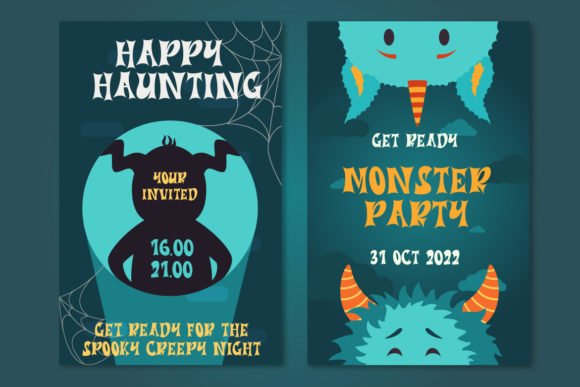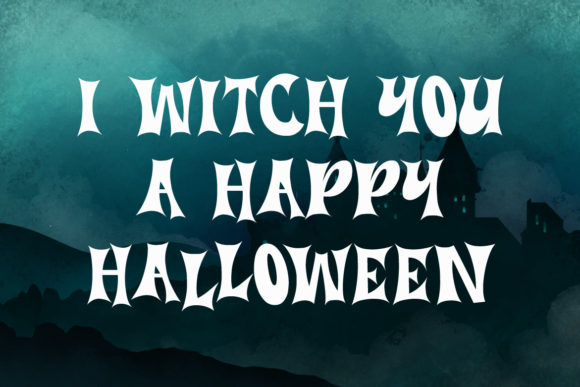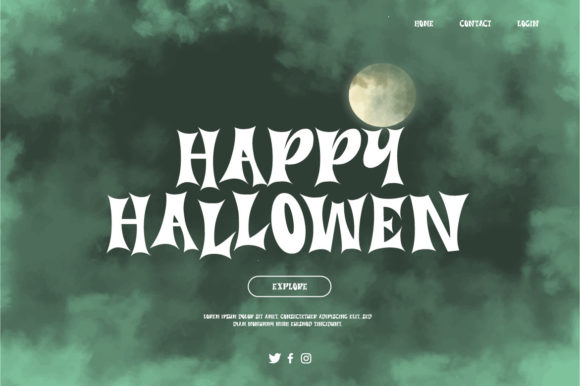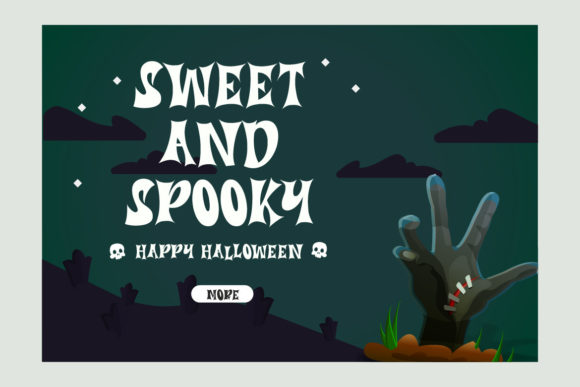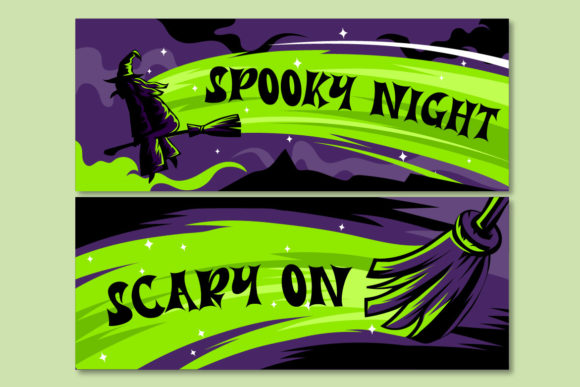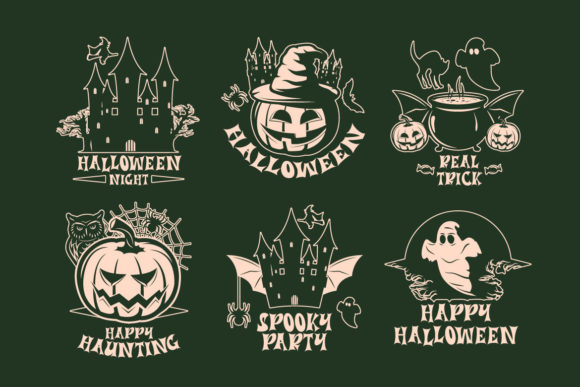
Introduction to Matti Font
Matti is a cool, spooky and fun display font.
Whether you use it for cartoon related designs, children games or just any creation that requires a lovely touch, this font will be an amazing choice .
Key Features of Matti Font